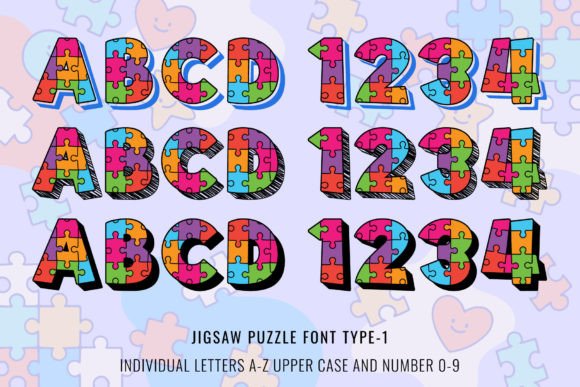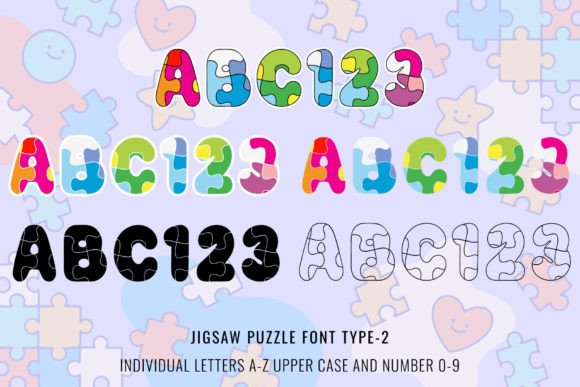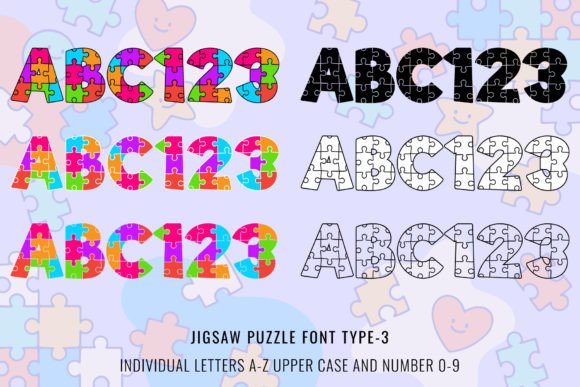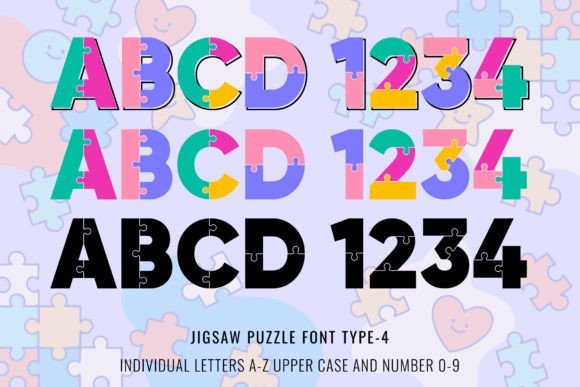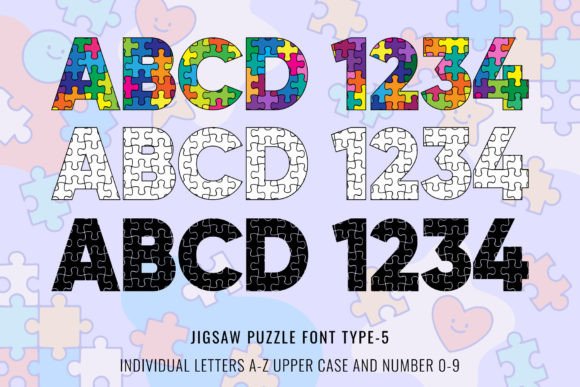
Introduction to Jigsaw Puzzle Collection Font
Do you remember the thrill of piecing together a jigsaw puzzle as a child? The excitement of watching a seemingly random collection of pieces transform into a beautiful, cohesive image? As adults, we may not be working on puzzles as much, but we can still tap into that same creative energy with the right design tools. Enter the Jigsaw Puzzle Collection Font, a treasure trove of 21 high-quality fonts from 6 typefaces, perfect for adding a playful touch to your next creative project.
Whether you’re a seasoned designer or just starting out, the Jigsaw Puzzle Collection Font is a valuable resource that’s sure to inspire. With its wide range of font styles, you’ll be able to bring your designs to life in a way that’s both fun and professional. Plus, with separate black, outline, and color font options, you’ll have the flexibility to create designs that pop against any background – even those with a transparent background!
Key Features of Jigsaw Puzzle Collection Font
- Unique Jigsaw Puzzle-inspired design elements for creative projects
Honest Review: Jigsaw Puzzle Collection Font
I recently stumbled upon the Jigsaw Puzzle Collection Font and I’m excited to share my thoughts on it. As a designer, I’m always on the lookout for high-quality design resources to elevate my creative projects.
Here are some things that I think work well:
- ✨ High-quality design: The font is crisp and clear, making it perfect for various design applications.
- ✨ Versatile: The font comes with a transparent background, allowing for easy integration into any design project.
- ⚠️ Limited customization options: While the font itself is high-quality, there are limited options for customization, which might be a drawback for some designers.
- ⚠️ Not suitable for complex designs: The font might not be the best choice for complex designs that require intricate typography.
Overall, I think the Jigsaw Puzzle Collection Font is a solid addition to any designer’s toolkit. While it may have some limitations, its high quality and versatility make it a great resource for various creative projects.
Getting the Most Out of Jigsaw Puzzle Collection Font
For optimal results, use the Jigsaw Puzzle Collection Font in conjunction with other design elements, such as textures and patterns. Experiment with different font sizes and colors to create a visually appealing design. You can also use it in combination with other fonts to create a unique and creative look.
The Jigsaw Puzzle Collection Font is perfect for a variety of projects, including children’s educational materials, party invitations, and creative greeting cards. Its fun and playful design makes it a great choice for any project that needs a unique and eye-catching look.
Q: What makes the Jigsaw Puzzle Collection Font a high-quality design resource?